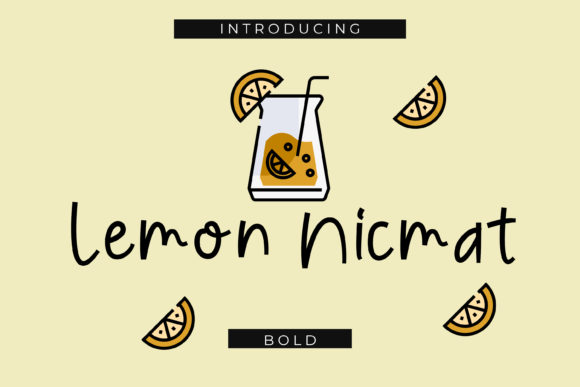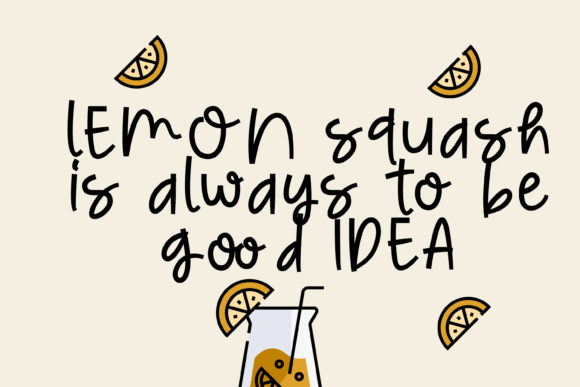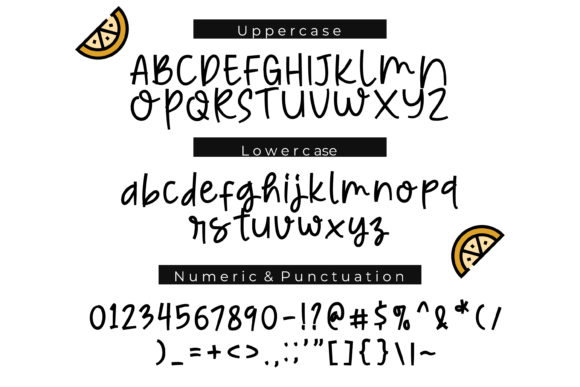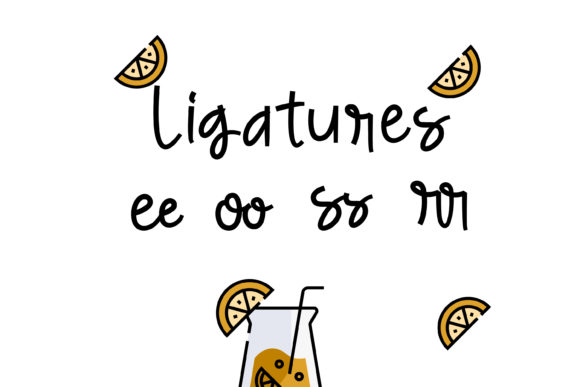
About Lemon Nicmat Font
Lemon Nicmat is a one-of-a-kind handwritten font that exudes a delightful and whimsical charm. Its uniqueness lies in the way it captures the essence of handcrafted artistry, making it a standout choice for any creative project. When you use Lemon Nicmat, you’ll instantly fall in love with its authenticity and versatility, elevating your designs to new heights.
This font’s quirkiness and originality bring a fresh and exciting element to your work. It is perfect for those who dare to be different and want to make a bold statement with their designs. Whether you’re creating invitations, logos, social media graphics, or any other artwork, Lemon Nicmat adds a touch of individuality that sets your projects apart from the ordinary.
Invitations take on a whole new level of charm with Lemon Nicmat. Its whimsical letterforms make each word feel like a carefully crafted piece of art, leaving guests excited about the upcoming event from the moment they receive the invite.
Logos designed with Lemon Nicmat become memorable and eye-catching. Its playful nature creates an instantly recognizable brand identity that leaves a lasting impression on customers and clients.
Social media graphics come alive with Lemon Nicmat’s unique touch. From Instagram posts to Pinterest pins, this font adds personality and flair to your content, making it more shareable and engaging.
When used in quotes and typography designs, Lemon Nicmat breathes life into the words, turning them into visual delights that captivate audiences. Its authenticity and quirkiness give a sense of genuineness and relatability to the messages you wish to convey.
No matter what creative ideas you have in mind, Lemon Nicmat is your perfect companion. It adapts effortlessly to a wide range of themes and styles, providing you with endless possibilities for expression. Its playful and distinct character encourages experimentation and invites you to step outside the boundaries of convention.
In conclusion, Lemon Nicmat is an incredibly unique and quirky handwritten font that adds a touch of authenticity and charm to your creative ideas. Its individuality and versatility make it the perfect choice for invitations, logos, social media graphics, quotes, and any other design project you have in mind. Embrace the delightful quirkiness of Lemon Nicmat and watch your designs come to life with a refreshing and original flair!